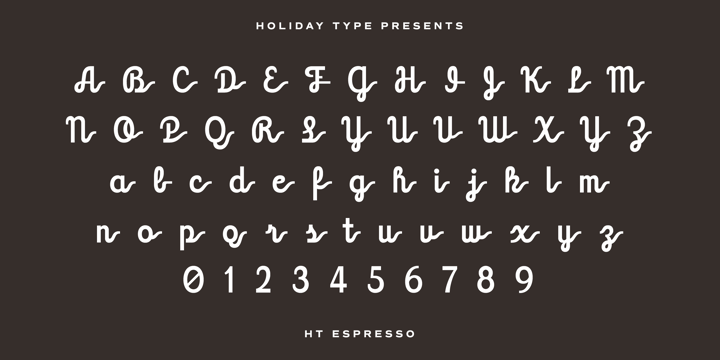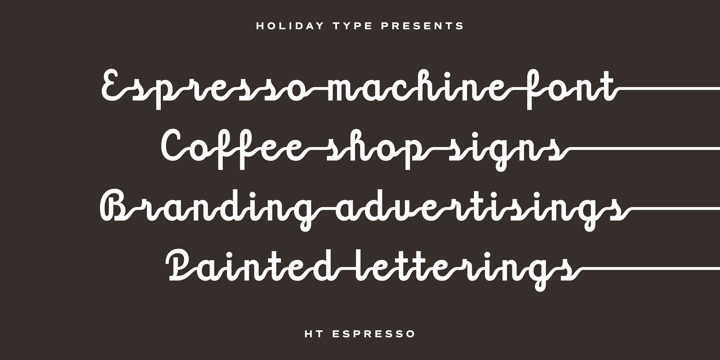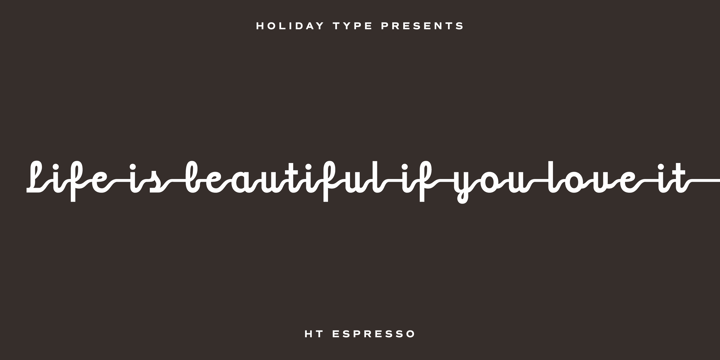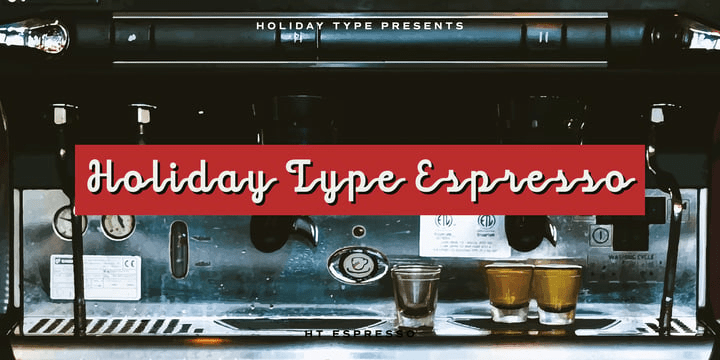
HomeFont BrosArt Deco (1910-1935)HT Espresso Art Deco (1910-1935)Retro (1936-1965)Scripts: CasualScripts: FormalFuturistic HT Espresso FacebookXPinterestWhatsApp 1 of 4 About HT Espresso Retro script based on shopfront lettering, wallpaint advertisements in Italy around 1950s.  DOWNLOAD NOW People also explored Duality Handmade Compact Winter Christmas Font Romance Font Egertan Font Gendhis Font Montain Fight Font Afternoon in Winter Font Childe Font 277 0 TagsHT Espresso Font Previous articleGainsboroughNext articleFilmotype Manchester LEAVE A REPLY Cancel reply Comment: Please enter your comment! Name:* Please enter your name here Email:* You have entered an incorrect email address! Please enter your email address here Website: Save my name, email, and website in this browser for the next time I comment. Personal Use Free Groomer Personal Use Free Read more about this font Vembazax Rm Personal Use Free Read more about this font Lollipop Melody Personal Use Free Read more about this font Avatarock Personal Use Free Read more about this font BLOG Using Fonts in Digital Marketing: Tips to Strengthen Your Brand Identity In the realm of digital marketing, every visual element plays a crucial role in shaping a brand's identity, and fonts are no exception. The... Transform Your Website: Elevate Your Typography with 7 Best Web Font Generators The 10 Best Handwriting Fonts to Add Personality to Your Designs To increase your work productivity, choose the most readable fonts.